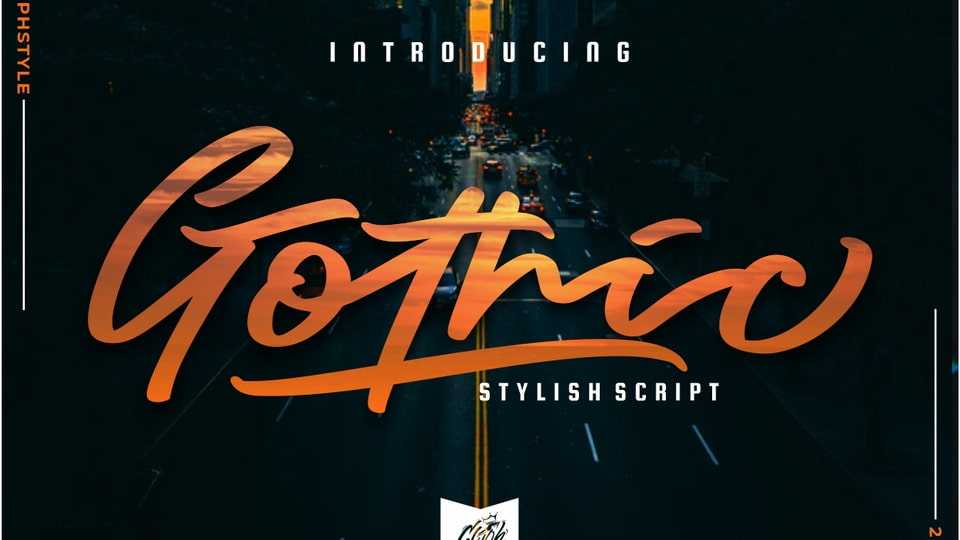
Download Gothic font, a stylized script style, with a wide selection of characters. A bold script font that looks cool. Gothic is perfect for branding projects..